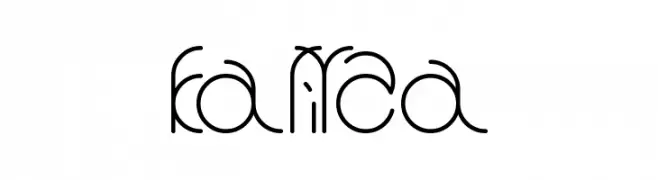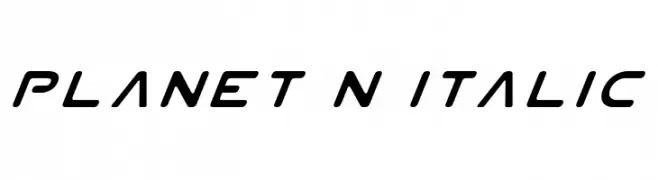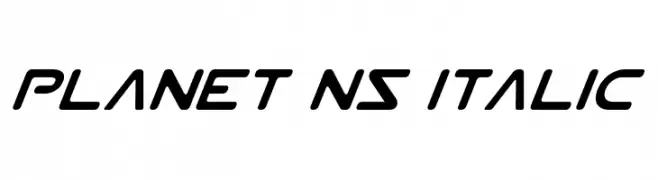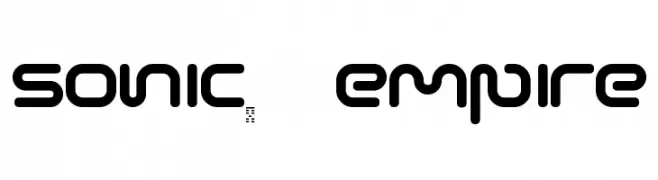
( Fonts by weknow - Wino S Kadir )
A modern, futuristic font with smooth, continuous lines and abstract shapes.
A playful, rounded font with smooth curves and a friendly appearance.
A sleek, futuristic italic font with smooth lines and a dynamic appearance.
A sleek, futuristic italic font with smooth, continuous lines.
A futuristic, expanded italic font with geometric shapes and smooth curves.
( Fonts by Emil Bertell - www.fenotype.com )
A bold, futuristic font with geometric shapes and smooth curves, slightly italicized for a dynamic look.
( Fonts by www.koenhachmang.com - Glitch )
A futuristic, rounded font with smooth curves and a modern aesthetic.
A futuristic, italic font with geometric shapes and smooth curves.